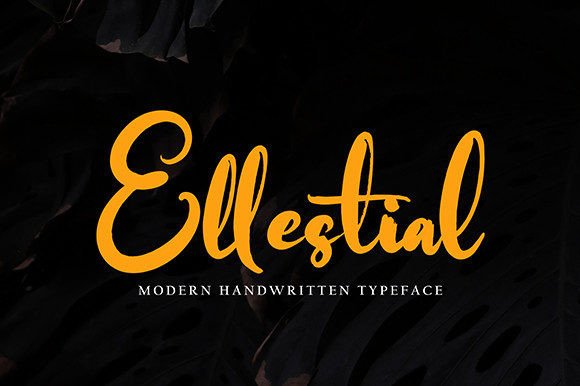
Introducing Ellestial Font: The Quintessential Script Font for Timeless Elegance and Modern Charm. Let your designs blossom with the beauty of Ellestial, an exquisite script font that embodies timeless elegance and contemporary charm. Inspired by the enduring allure of classic calligraphy, Ellestial strikes a perfect balance between delicate finesse and confident boldness.
Journey into a world of visual enchantment where words dance with grace and sophistication. Ellestial's meticulously crafted curves and rhythmic flow lend an air of sophistication and artistry to every letterform. Its moderate weight ensures readability without compromising on visual impact, making it the perfect choice for a wide range of design projects.
Step into the spotlight with Ellestial, the font that commands attention without overpowering your message. Its carefully calibrated strokes create a harmonious balance, ensuring that your words shine brightly while maintaining a sense of understated elegance. Whether you're crafting wedding invitations, designing logos, or creating social media graphics, Ellestial elevates your creations to new heights of sophistication.
Ellestial is not just a font; it's an experience. Its smooth transitions and graceful flourishes evoke a sense of artistry and craftsmanship that captivates the eye and stirs the emotions. Let your designs speak volumes with Ellestial, the font that turns mere words into works of art.
Unlock the endless possibilities of expression with Ellestial. Its versatility knows no bounds, lending itself seamlessly to a myriad of design endeavors. From elegant wedding menus to captivating logos and enchanting social media posts, Ellestial transforms your vision into a tangible masterpiece.
Make a statement that resonates with your audience. Let Ellestial be your creative companion, guiding you towards design excellence. Its timeless beauty and contemporary flair will elevate your projects and leave a lasting impression on all who encounter them.
Elevate your designs to new heights of sophistication and grace with Ellestial. Embrace the essence of classic calligraphy, reimagined for the modern age. Experience the joy of creating with a font that breathes life into your words, transforming them into visual poetry.